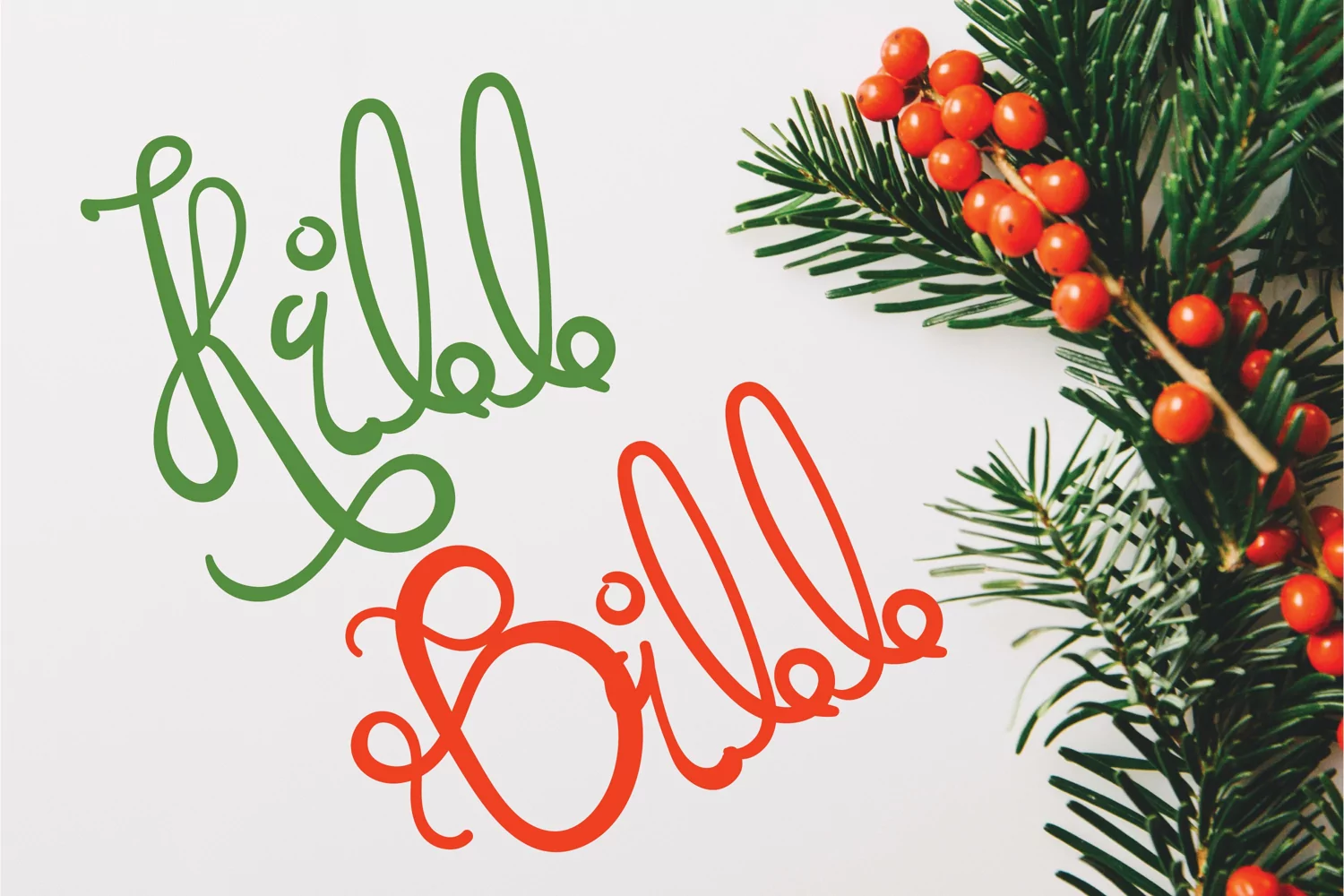
Super Holidays - A Fun Curly Font
Presenting a font that you can you use for multiple purpose. A combination of script and hand drawn upper and lower case alphabets font that is perfect for making invitation card, Christmas, events, celebrations and more. You can get now with instant download file ready to install.
2- Upper and Lower case (check the preview and test below)
3- Super fun font for your project.